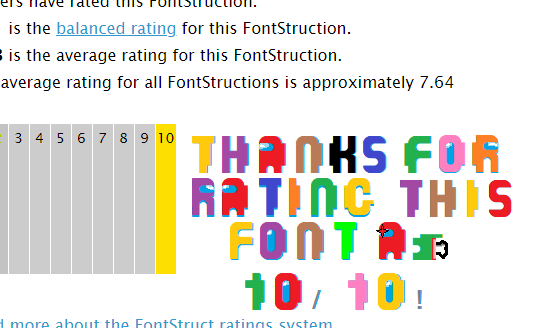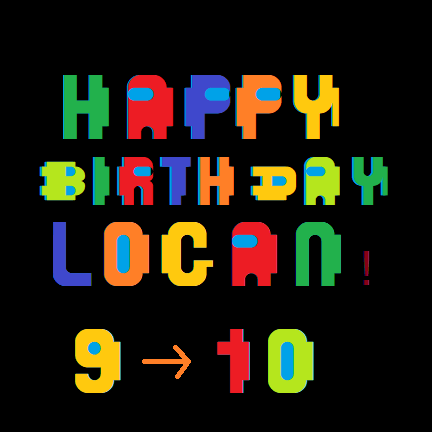
• based off an among us character.
* =Dead Body
very creative! lovely
Big brain time.
a very clever and well executed design
OMG WOW
testing my font while birthday stuff is going on in my house.